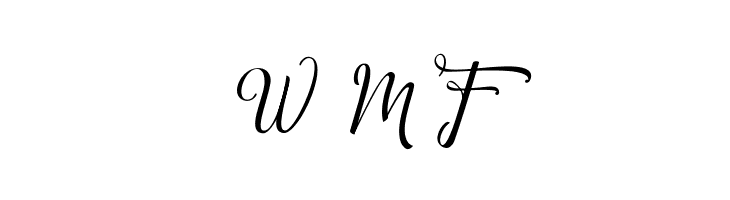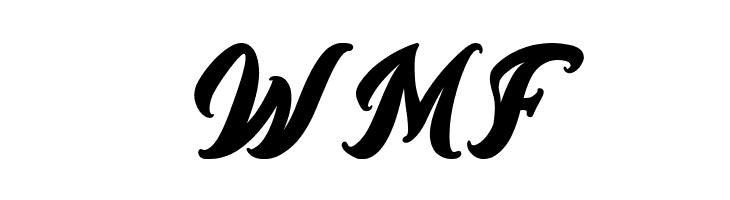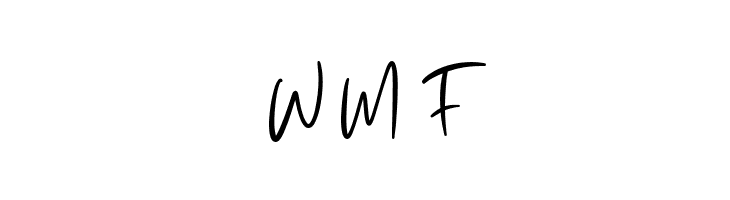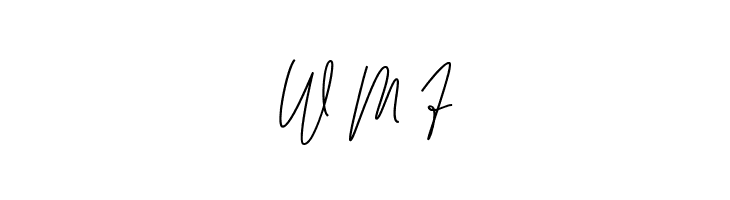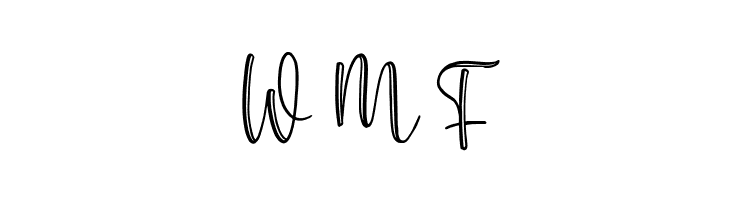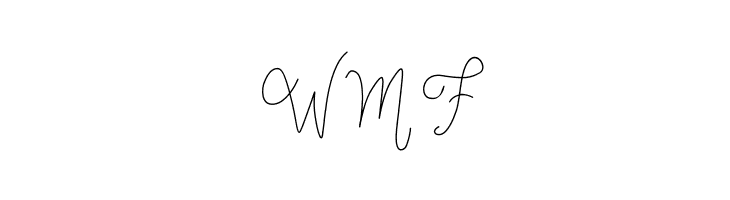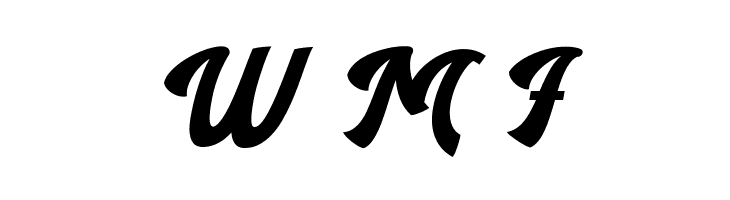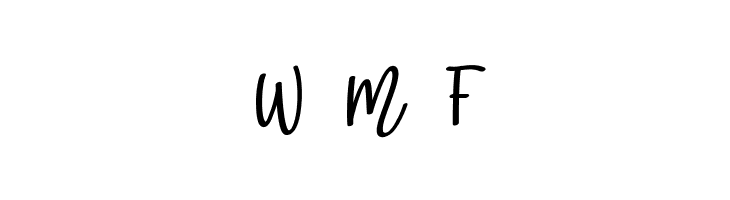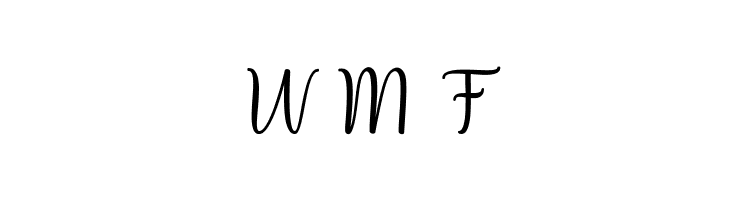
A lively and elegant script font with smooth, cursive strokes.
A graceful script font with flowing, connected strokes and elegant curves.
An elegant, cursive script font with ornate swashes and a handwritten feel.
A dynamic brush script font with fluid strokes and elegant flair.
A dynamic and expressive handwritten font with fluid, flowing letterforms.
A bold, cursive font with interconnected characters and a dynamic flow.
A playful and elegant script font with fluid, connected letterforms.
A bold, condensed, and rounded italic font with a modern flair.
A sketch-style italic font with a hand-drawn, artistic appearance.
An elegant, flowing script font with smooth, cursive strokes.
A lively, handwritten-style font with fluid, expressive strokes.
An elegant, flowing script font with intricate loops and swashes, perfect for formal occasions.
A graceful cursive font with elegant, flowing characters.
A fluid and elegant script font with a handwritten appearance.
A classic and elegant script font with flowing, cursive letterforms.
An elegant, flowing script font with a handwritten appearance.
An elegant script font with flowing, interconnected letters and ornate flourishes.
A bold, cursive script font with dynamic, flowing strokes and elegant connections.
An elegant and flowing script font with intricate loops and swirls.
A bold, flowing script font with elegant curves and dynamic slant.
A playful and elegant script font with fluid, connected letterforms and medium contrast.
An elegant script font with flowing, cursive letterforms and decorative swirls.
A lively, flowing script font with elegant cursive letterforms.
A modern, elegant script font with flowing, interconnected characters.
A dynamic and elegant script font with fluid, connected letterforms.
A playful and elegant script font with flowing, cursive letterforms.
An elegant script font with flowing, cursive style and intricate flourishes.
An elegant script font with flowing curves and decorative flourishes.
A modern, elegant handwritten font with fluid, cursive strokes.
A graceful script font with fluid, cursive strokes and elegant flourishes.
An elegant script font with flowing, cursive letters and graceful swashes.